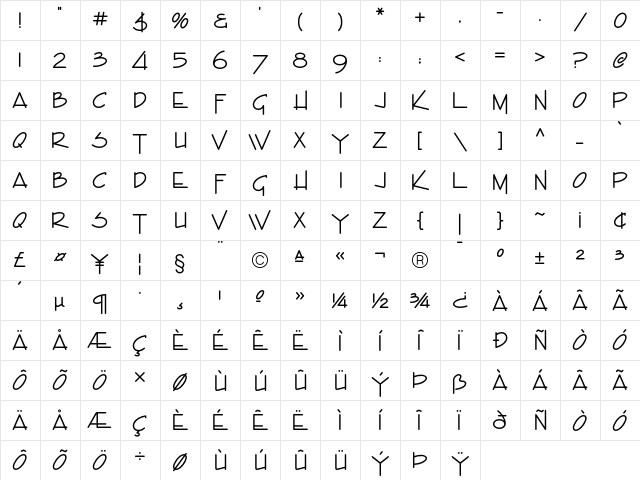
EnviroICG Regular Font Preview
EnviroICG Regular
Design Context for EnviroICG Typeface
EnviroICG offers clean, dependable letterforms without strong stylistic allegiance, making it a practical choice for designers who need flexibility.
Pro Tip: Pair EnviroICG with a font of contrasting weight or personality to build a more expressive typographic hierarchy.